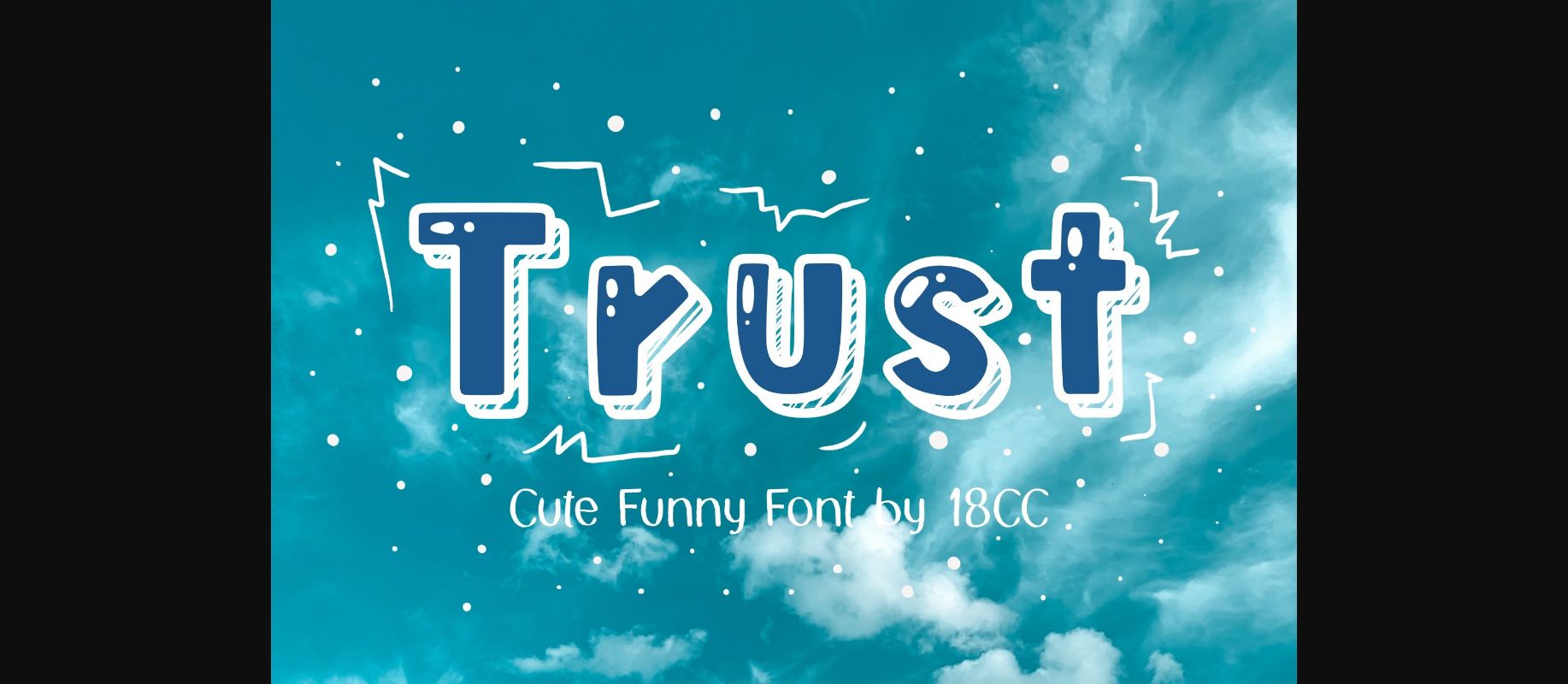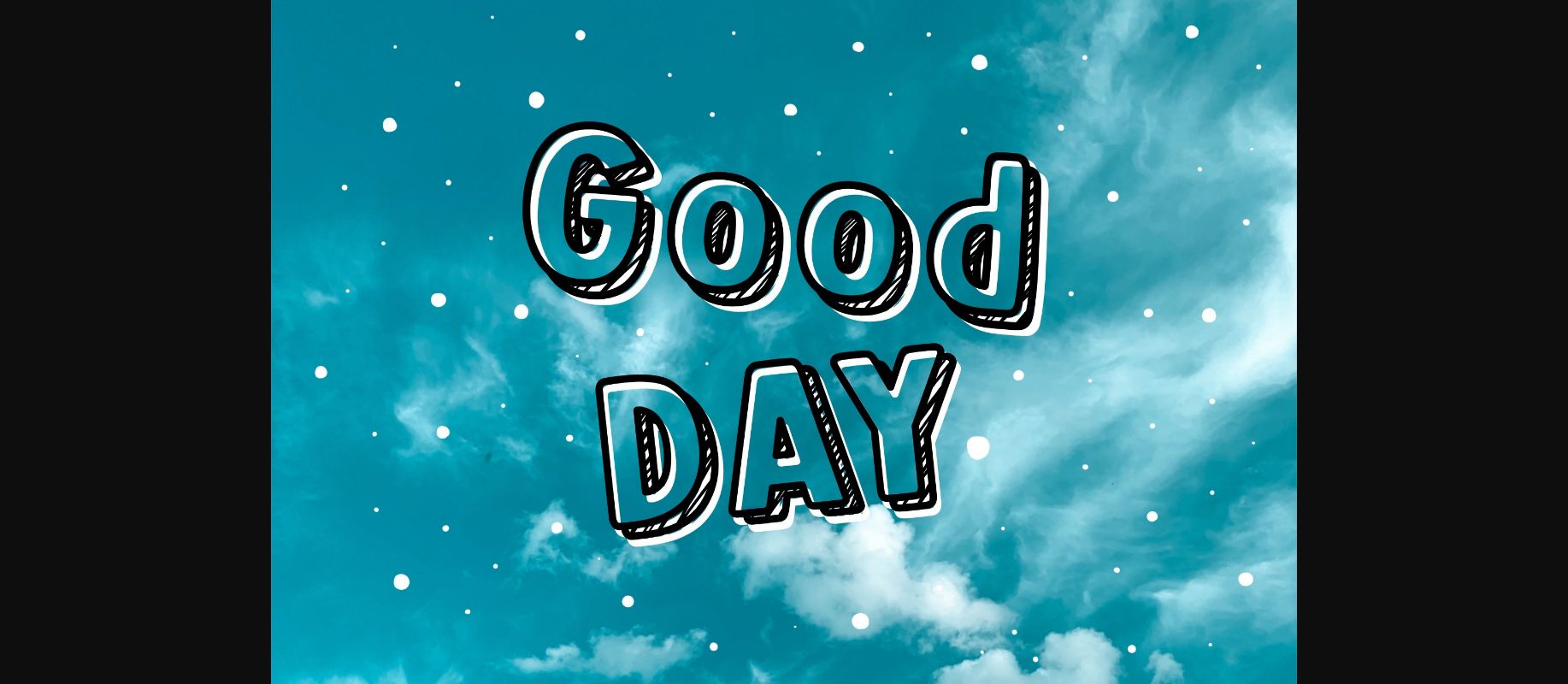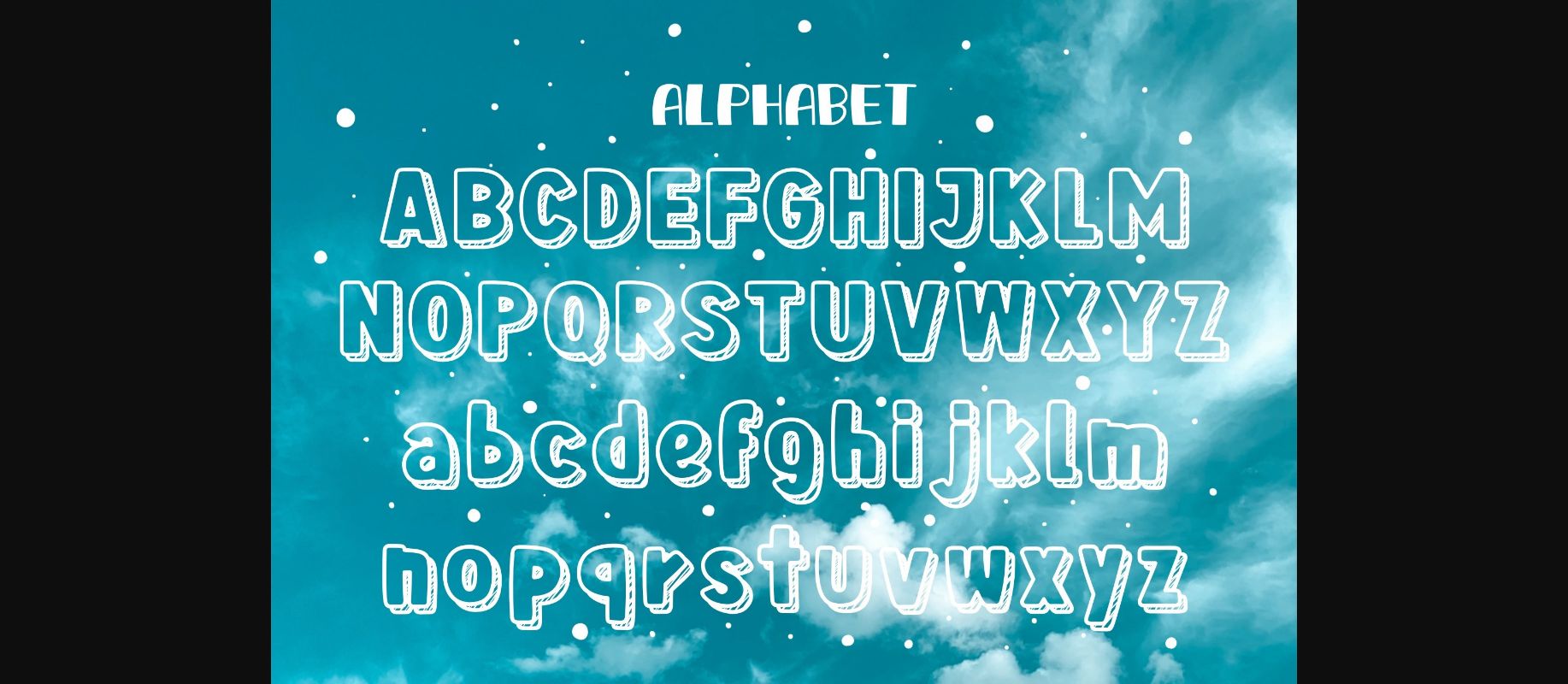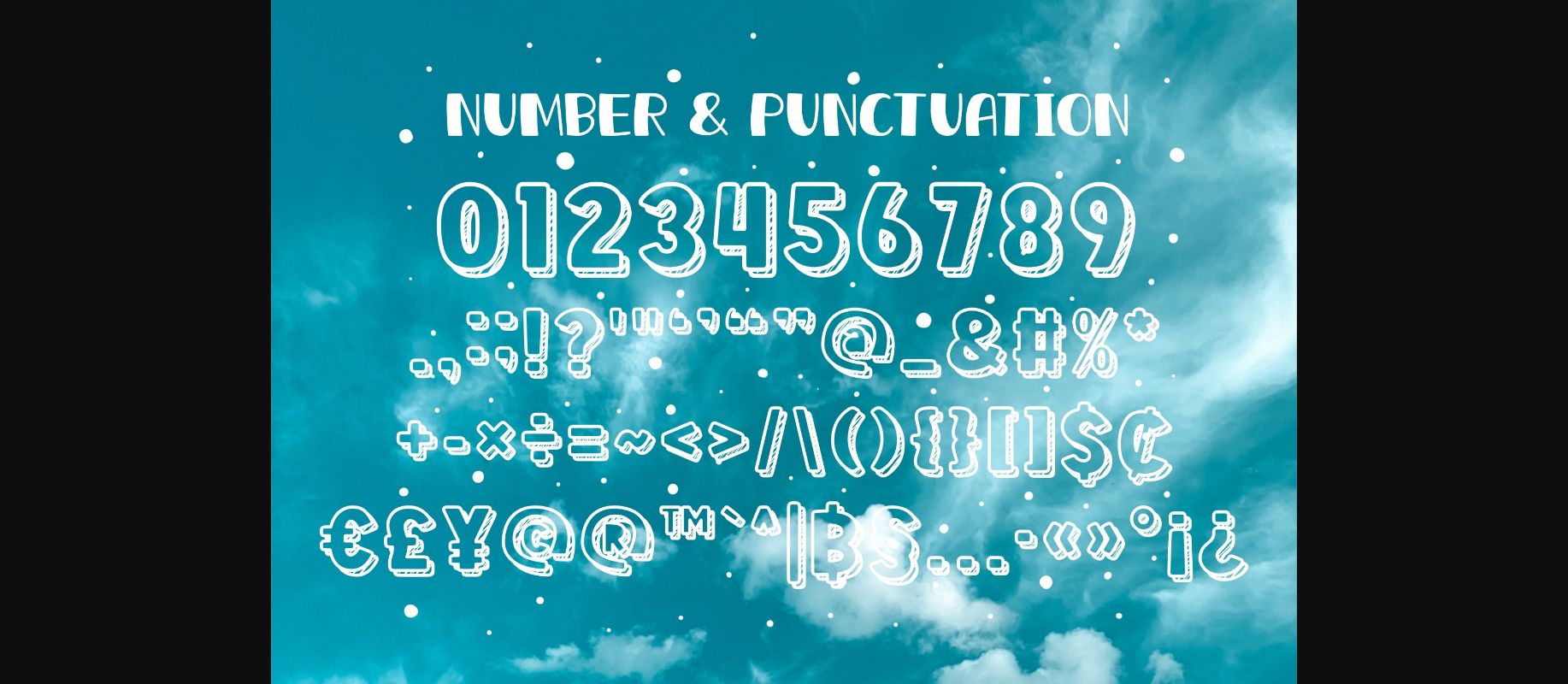
HomeDecorative FontsTrust Font Decorative Fonts Trust Font FacebookXPinterestWhatsApp 1 of 6 ... Trust Font Poster 2... Trust Font Poster 3... Trust Font Poster 4... Trust Font Poster 5... Trust Font Poster 6... About Trust Font Trust is a cute and funny font. This font is perfect for a design that requires a fun accent. Is suitable for book covers, posters, packaging, merchandise, logotype, and much more. DOWNLOAD NOW People also explored Sunflower Font Daily Routine Font Asokine Reboxing Font Grotters Font Hello Aster Font Vintage Clothes Font Retro Greathe Font Lovely Sonia Font Flash Script Font 423 0 TagsTrustTrust Font Previous articleHelloween Blood FontNext articleLeafy Delight Font LEAVE A REPLY Cancel reply Comment: Please enter your comment! Name:* Please enter your name here Email:* You have entered an incorrect email address! Please enter your email address here Website: Save my name, email, and website in this browser for the next time I comment. Personal Use Free BD Algebra Personal Use Free Read more about this font Batik Classic Personal Use Free Read more about this font Jelly Fish Personal Use Free Read more about this font Frizton Personal Use Free Read more about this font BLOG How to Install and Use Fonts on Windows, macOS, and Web Projects How to Install and Use Fonts on Windows, macOS, and Web Projects Fonts are a crucial part of design and branding. Whether you’re designing a... Free vs Paid Fonts: Why Investing in Premium Fonts Is Worth It The 10 Best Handwriting Fonts to Add Personality to Your Designs Free Fonts Risk: Why Free Fonts Can Be Dangerous for Designers